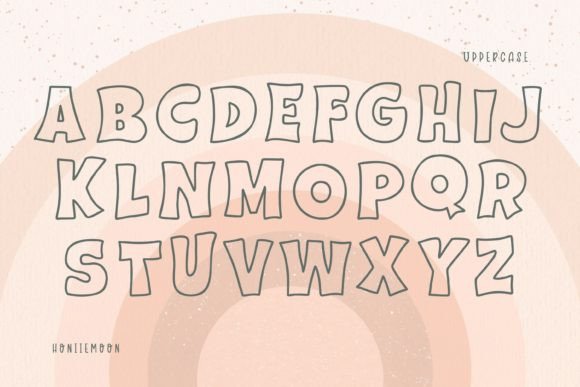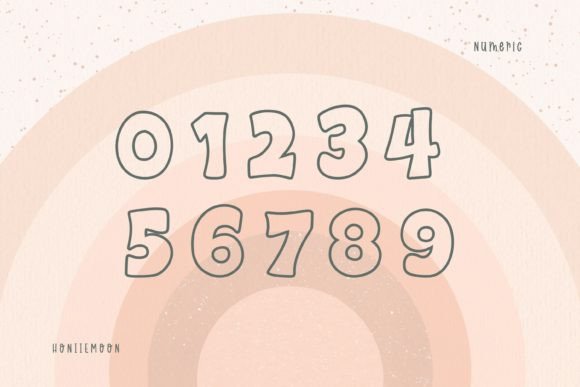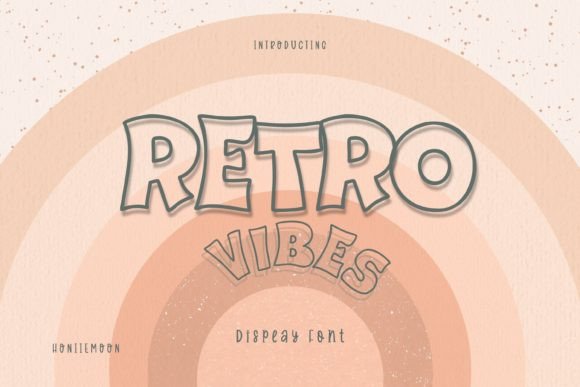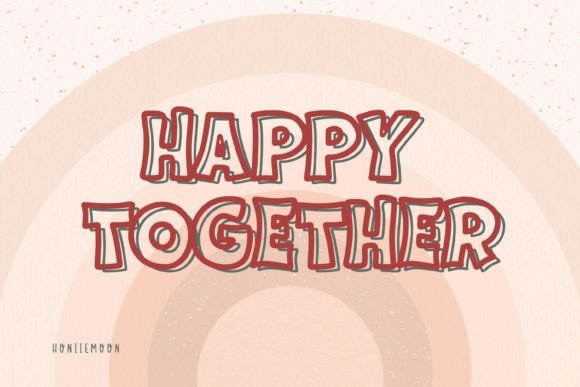
Retro Vibes Font: Groovy Display Font for Playful Designs
About the Retro Vibes Font
Introducing the Retro Vibes Font, a beautifully crafted typeface designed to elevate your creative projects. Retro Vibes is a cool and fun display font. It looks both cute and jolly and it will enhance each of your designs. The only limit is your imagination. Add this colorful and bold display font to each of your creative ideas and notice how it makes them come alive!
Retro Vibes is ideally suited for headlines, posters, and branding projects where a bold, playful aesthetic is desired. Its chunky forms and slightly irregular letterforms make it perfect for eye-catching titles and short, impactful statements. However, its low x-height and unique character shapes make it unsuitable for body text or UI elements requiring high readability.
Pairing Retro Vibes with a clean sans-serif like Open Sans for body copy creates a strong visual hierarchy. For a more retro feel, consider pairing it with a geometric sans-serif such as Futura or a classic serif like Garamond. The contrast will emphasize Retro Vibes’ playful energy while maintaining readability.
The font’s overall personality is undeniably bold and cheerful, lending itself well to brands targeting a younger demographic or projects with a vintage, fun-loving vibe. Think ice cream parlors, retro clothing lines, or children’s products. Avoid using it where a sophisticated or minimalist aesthetic is required.
Retro Vibes Font Usage Examples
Retro Vibes Font Example